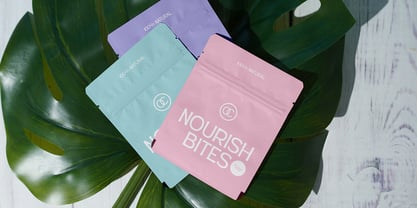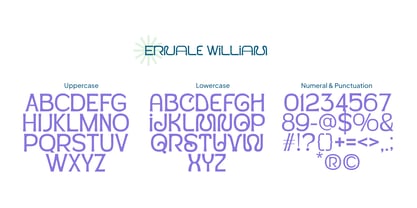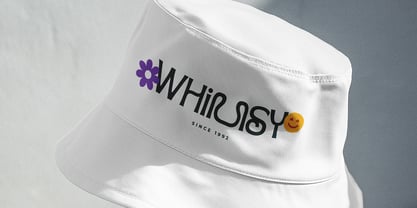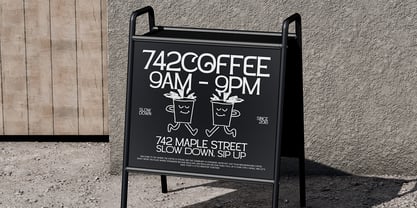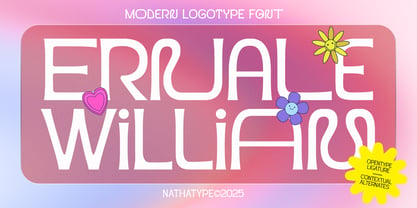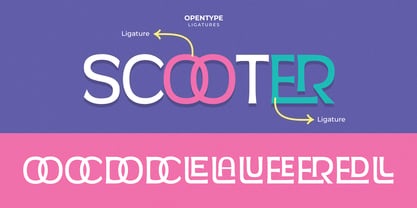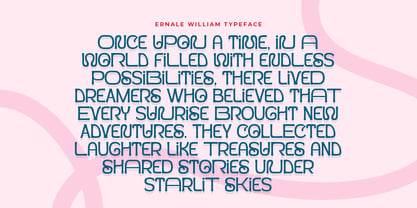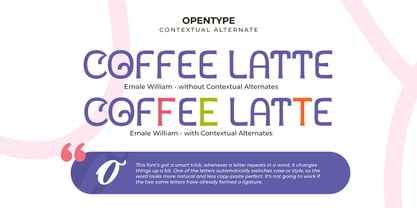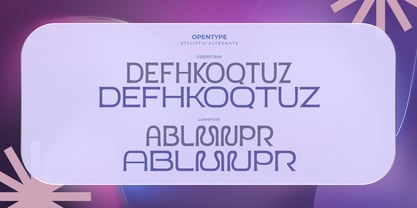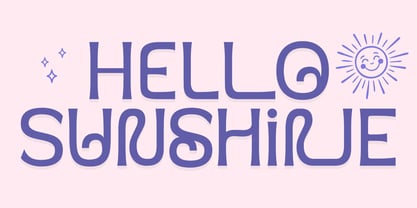
Ernale William
Die Schriftfamilie Ernale William wurde von Donis Miftahudin entworfen und von Nathatype veröffentlicht. Ernale William enthält 1 Stile. Mehr über diese Familie
Ernale William is a sleek and contemporary logotype font crafted in uppercase characters. Designed for brands that value sophistication and simplicity, Ernale William offers a refined visual identity that feels fresh, stylish, and effortlessly professional. With its slim strokes and balanced proportions, this font delivers a smooth and elegant presence. The low contrast between strokes ensures a uniform, cohesive look, enhancing readability while maintaining a polished, high-end feel. In addition, enjoy the features here. Features: Alternates Ligatures Multilingual Supports PUA Encoded Numerals and Punctuations Ernale William fits in logos, quotes, branding, posters, and many more designs. Find out more ways to use this font by taking a look at the font preview. Thanks for purchasing our fonts. Hopefully, you have a great time using our font. Feel free to contact us anytime for further information or when you have trouble with the font. Thanks a lot and happy designing.